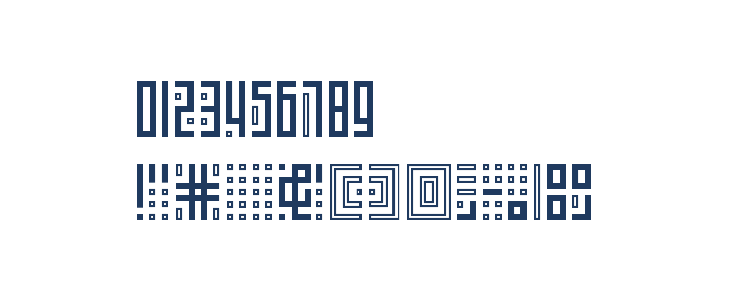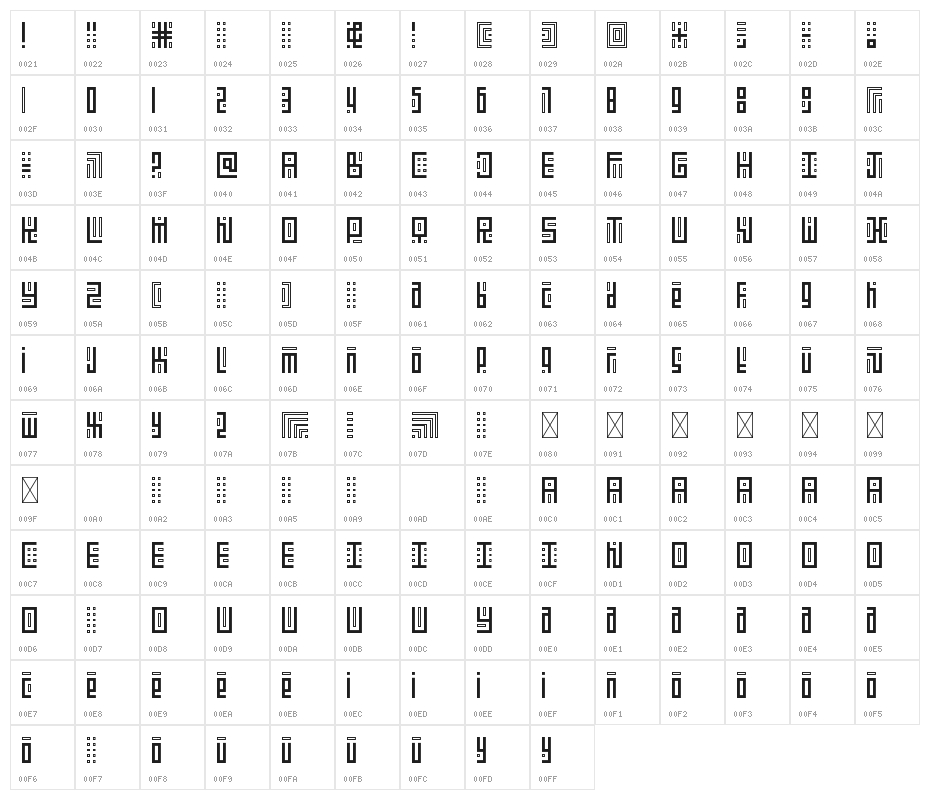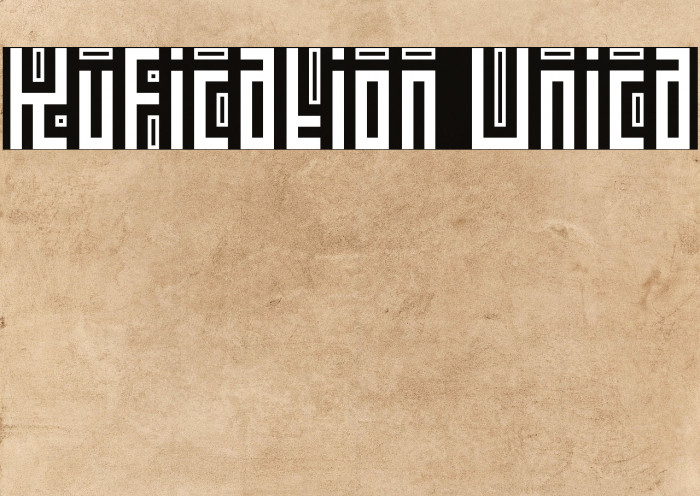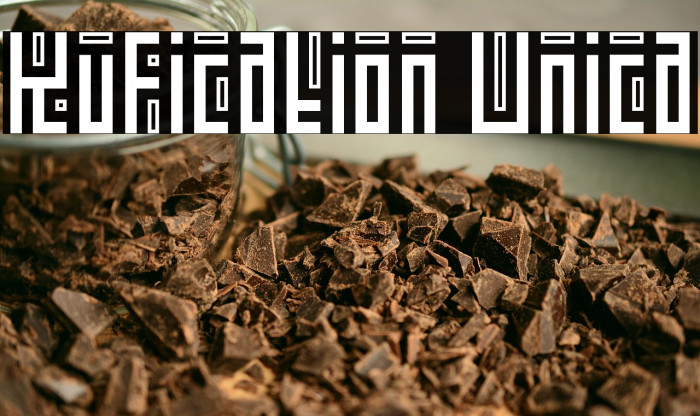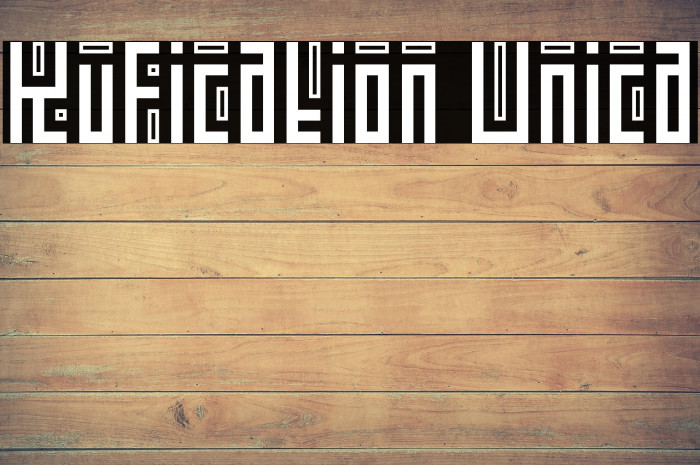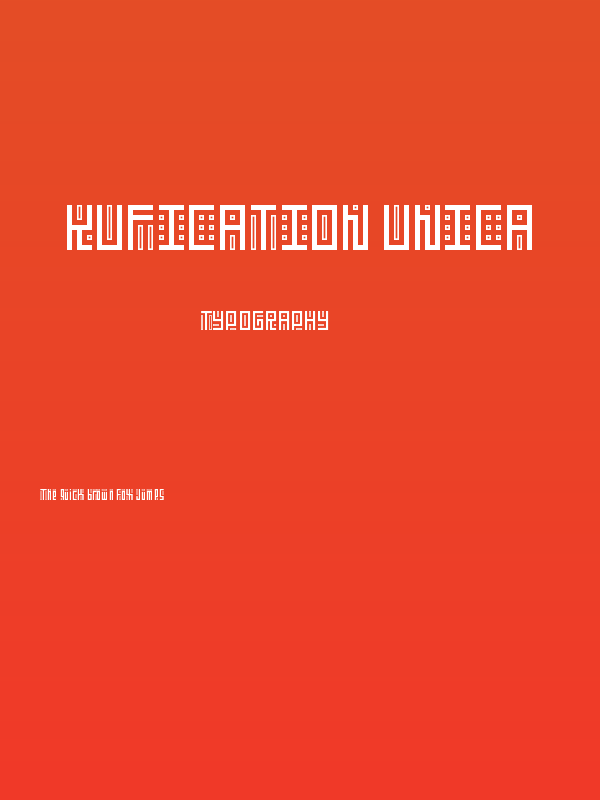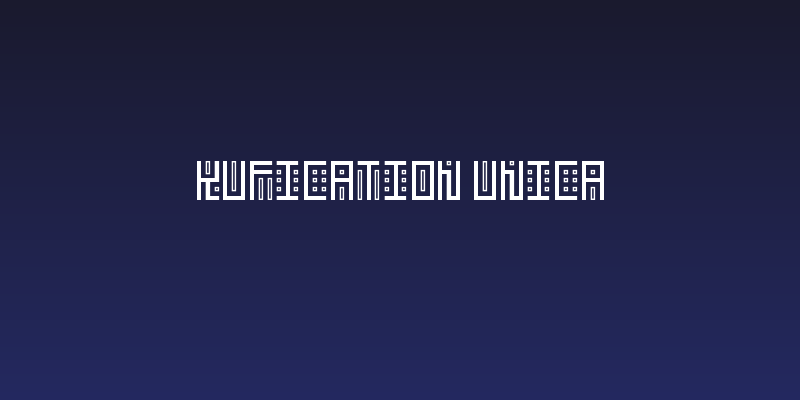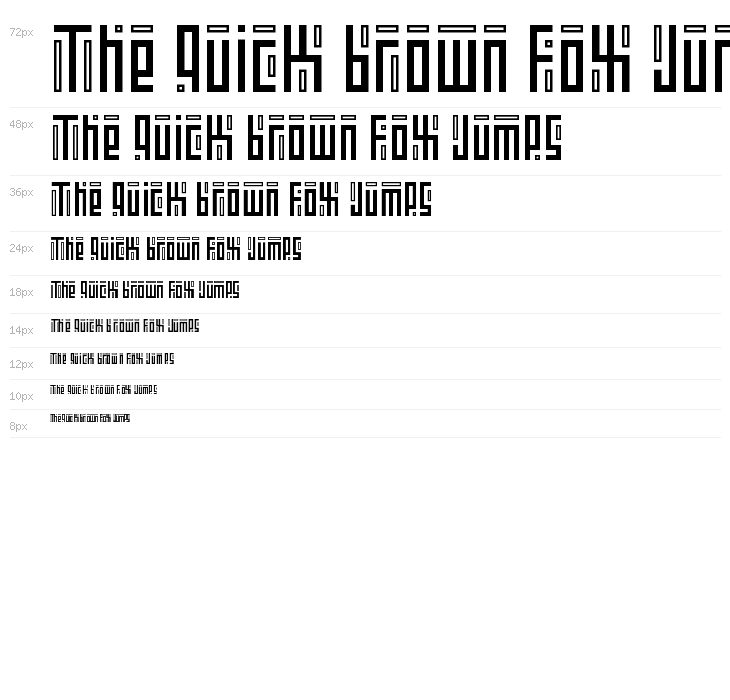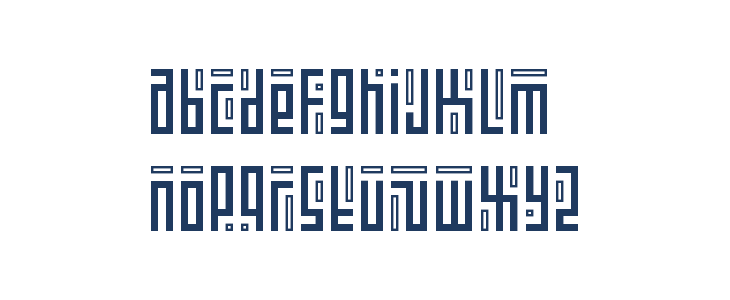
Kufication Unica Font
Kufication Unica Description
This font features a highly decorative and geometric style, characterized by its intricate patterns and bold lines. Each character is designed with a unique combination of squares, rectangles, and dots, creating a visually striking and complex appearance. The uppercase and lowercase letters maintain a consistent design theme, while the numbers and special characters incorporate similar geometric elements. The overall look is reminiscent of ancient scripts or digital codes, making it suitable for projects that require a futuristic or cryptic aesthetic.
| Overall Style | Futuristic, Cryptic |
| Proposed Projects | Ideal for branding, posters, album covers, and digital art projects that require a futuristic or cryptic look. |